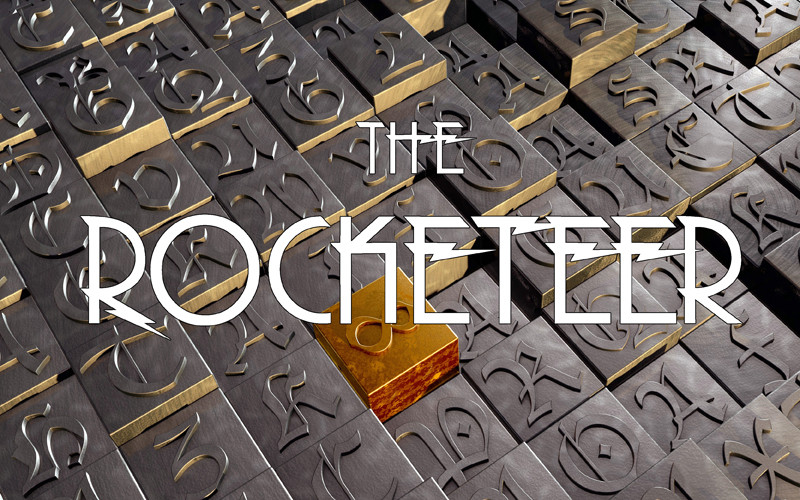
Directly from the film directed by JOE JOHNSTON and starring BILLY CAMPBELL, the new font for all fans of the film.
Direttamente dal film diretto da JOE JOHNSTON e interpretato da BILLY CAMPBELL, il font inedito per tutti gli estimatori del film.
Directly from the film directed by JOE JOHNSTON and starring BILLY CAMPBELL, the new font for all fans of the film.
Direttamente dal film diretto da JOE JOHNSTON e interpretato da BILLY CAMPBELL, il font inedito per tutti gli estimatori del film.